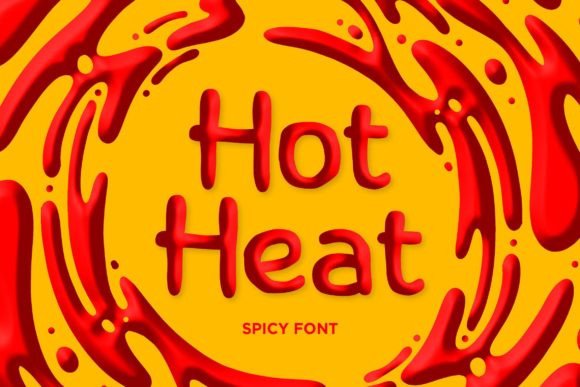
Step into the world of visual audacity with Hot Heat Font, a display font family crafted to ignite your designs with a fierce and fiery flair. This font is not just a collection of letters; it's a testament to the power of spice, a celebration of the fiery essence that adds zest to life.
Born from the inspiration of chili sauce drips and the captivating form of chili peppers, Hot Heat Font embodies the essence of bold and tantalizing flavors. Its unique design, with its dripping, wet-look aesthetic, adds an instant touch of vibrancy and intrigue to any project.
Unleash the sizzle in your spicy food and beverage designs. Hot Heat Font is the perfect partner for creating mouthwatering menus, eye-catching packaging, and tantalizing social media posts that will leave your audience craving for more.
Halloween takes on a whole new level of eerie sophistication with Hot Heat Font. Its dripping, molten appearance evokes a sense of mystery and intrigue, making it the ideal choice for creating spine-chilling posters, haunting invitations, and other Halloween-themed visuals.
Beyond the culinary and spooky realms, Hot Heat Font finds its home in a myriad of creative expressions. Its versatility shines in logos, branding materials, album covers, and even fashion designs. The dripping effect adds a touch of edginess and sophistication, making your creations stand out from the crowd.
Let Hot Heat Font be your secret ingredient for visual impact. Its bold strokes and spicy personality will ignite your designs, leaving a lasting impression on your audience. Dive into the world of Hot Heat Font and unleash your creative fire!